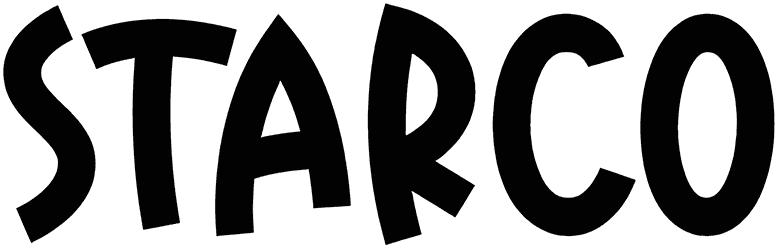
Skater Dudes Font
Skater Dudes font attracts all audiences with its playful characters. We recommend this doodle font if you like to complete the poster design of adventure animations or animals for many teenagers and children.
In addition, this fat marker font does not have uppercase letters, but you can provide the best kids’ designs such as T-shirts, and toy packaging for customers with lowercase letters and numbers.
Designed by: Pizzadude